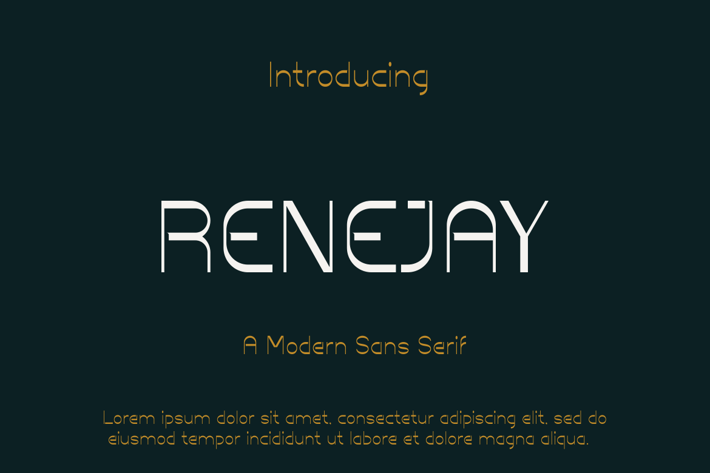
RENEJAY Font
Introducing our new product RENEJAY Font - Modern Font
RENEJAY Font - Modern Font is a bold and authentic display font. The font is suitable for any branding project like logo, t-shirt printing, esport, and many more. outstanding in a wide range of contexts.